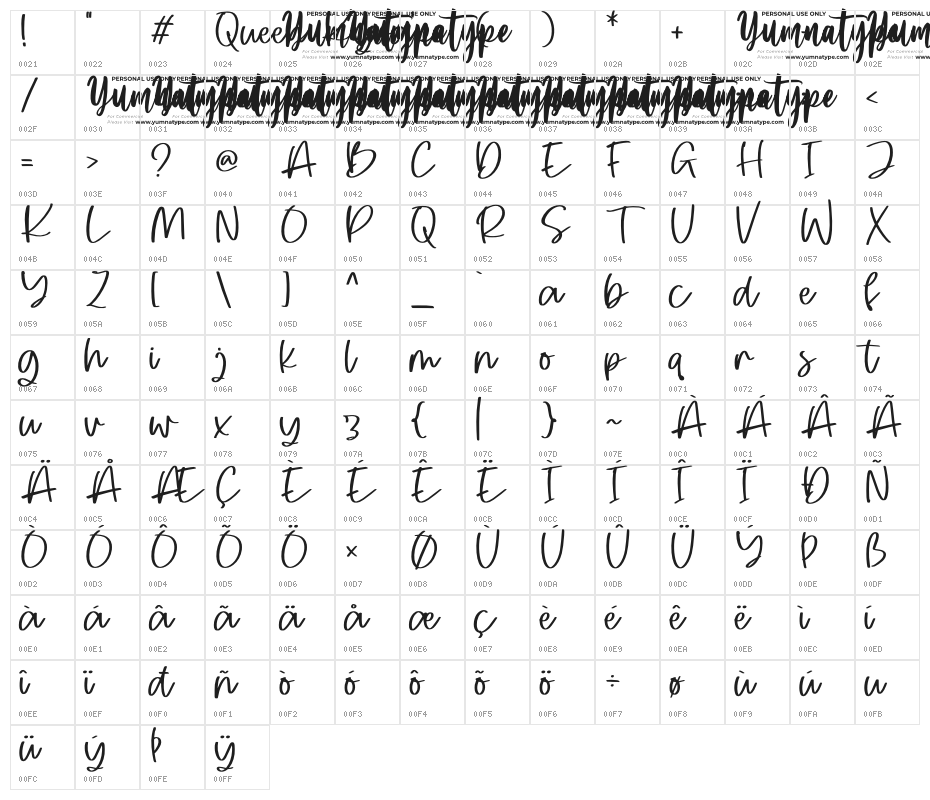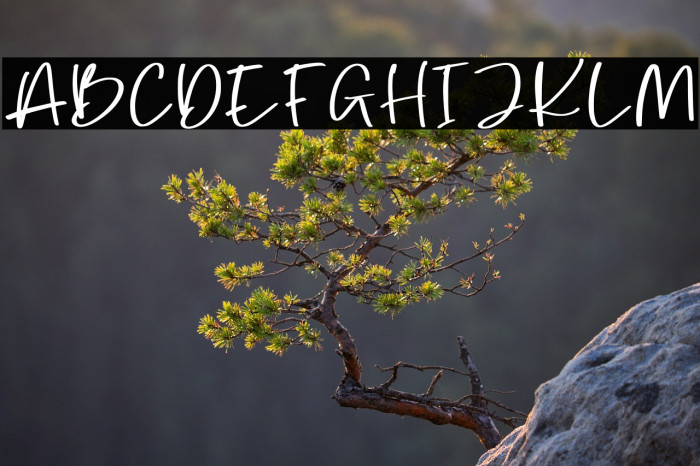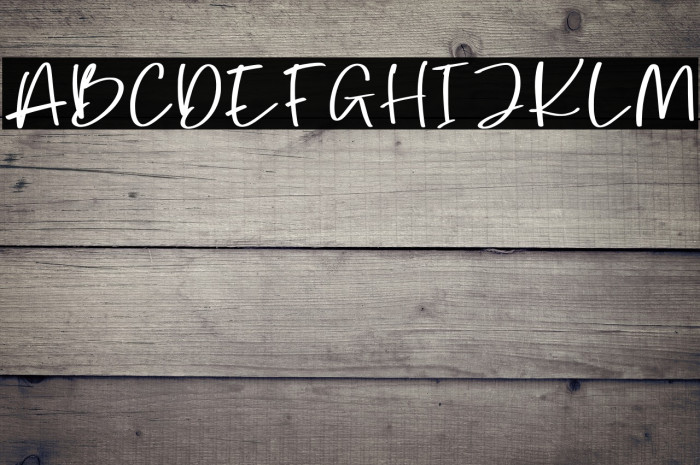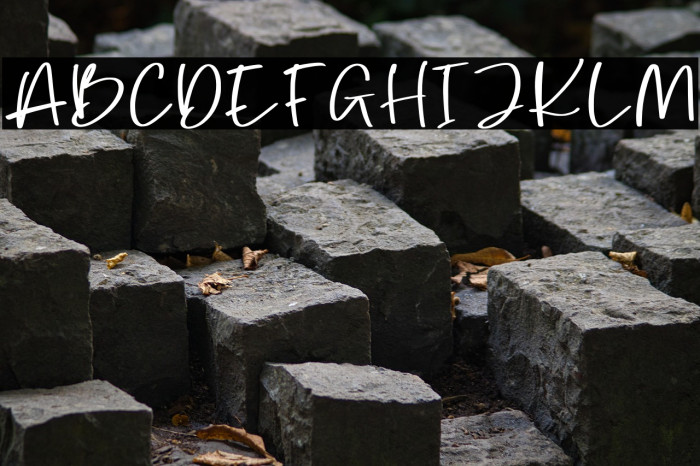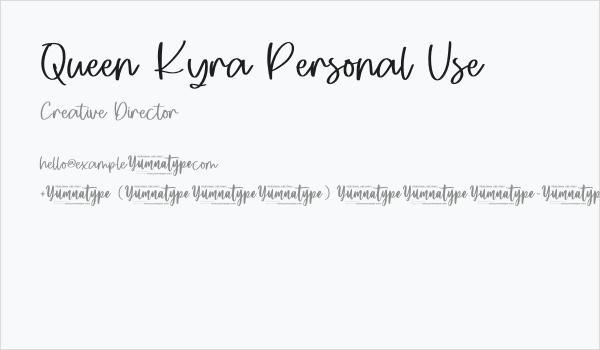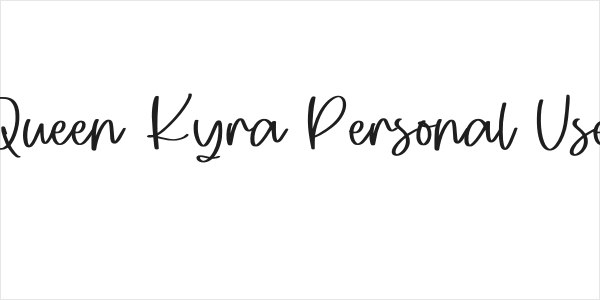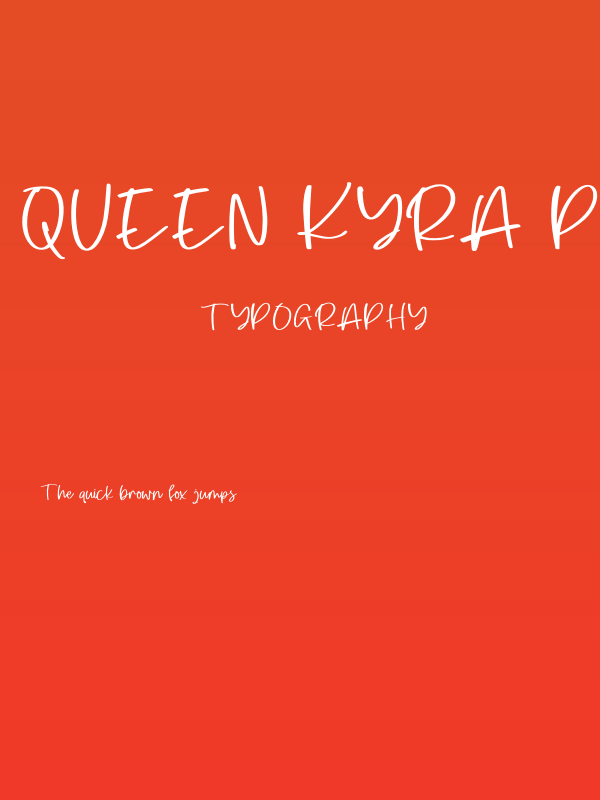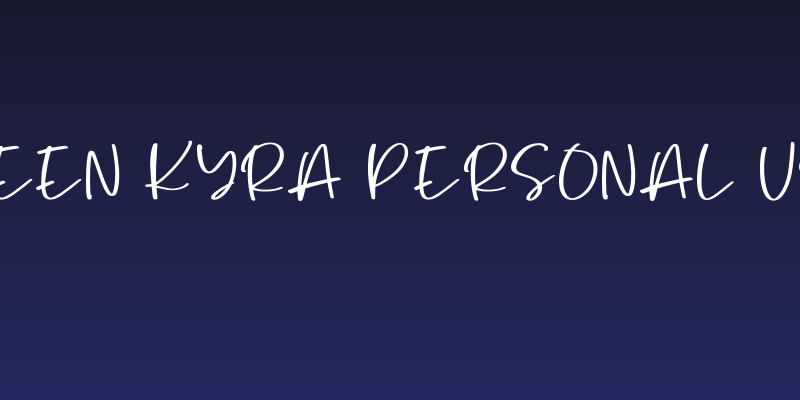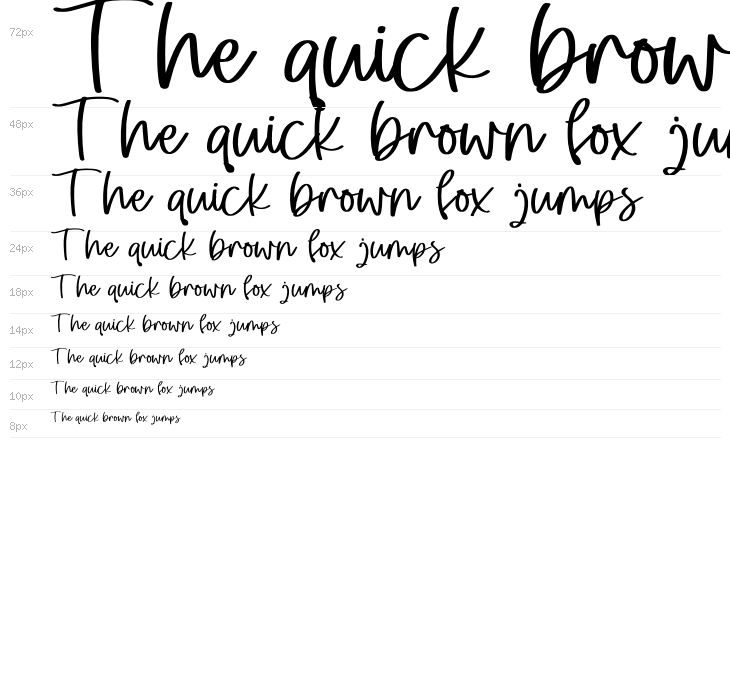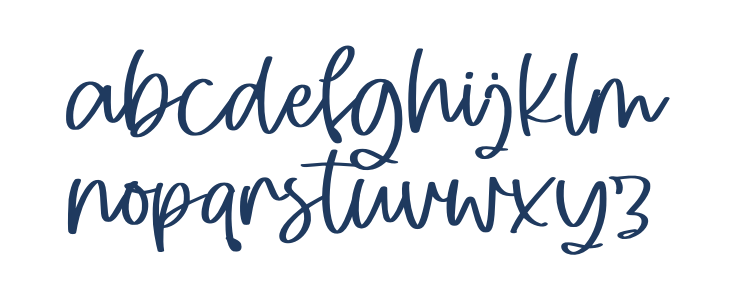
Queen Kyra Personal Use Font
Queen Kyra Personal Use Description
This font features a lively and expressive handwritten style, characterized by its fluid and dynamic strokes. The uppercase letters exhibit a playful yet elegant form, with a slight slant that adds a sense of movement. The lowercase letters are more bold and rounded, providing a nice contrast to the uppercase. The overall design is casual and friendly, making it suitable for projects that require a personal touch. The special characters maintain the same playful and dynamic style, ensuring consistency throughout the typeface.
| Proposed Projects | Ideal for greeting cards, invitations, personal branding, and creative projects that require a personal and friendly touch. |